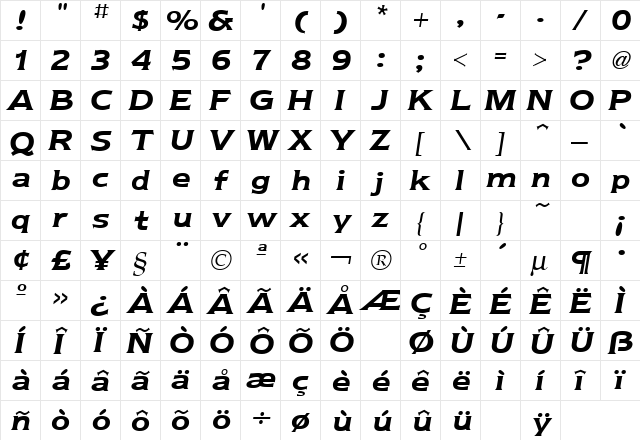
Newtext Bold Italic Font Preview
Design Context for Newtext Typeface
Newtext takes a measured approach to typography — its balanced proportions and neutral character make it a reliable workhorse for both digital and print work. The dynamic lean of this cut emphasises speed and emphasis in any layout. Its bold stroke weight gives it real presence on the page.
Pro Tip: Try Newtext for annotation and caption copy alongside an upright companion — the contrast in angle creates a dynamic but ordered typographic system.